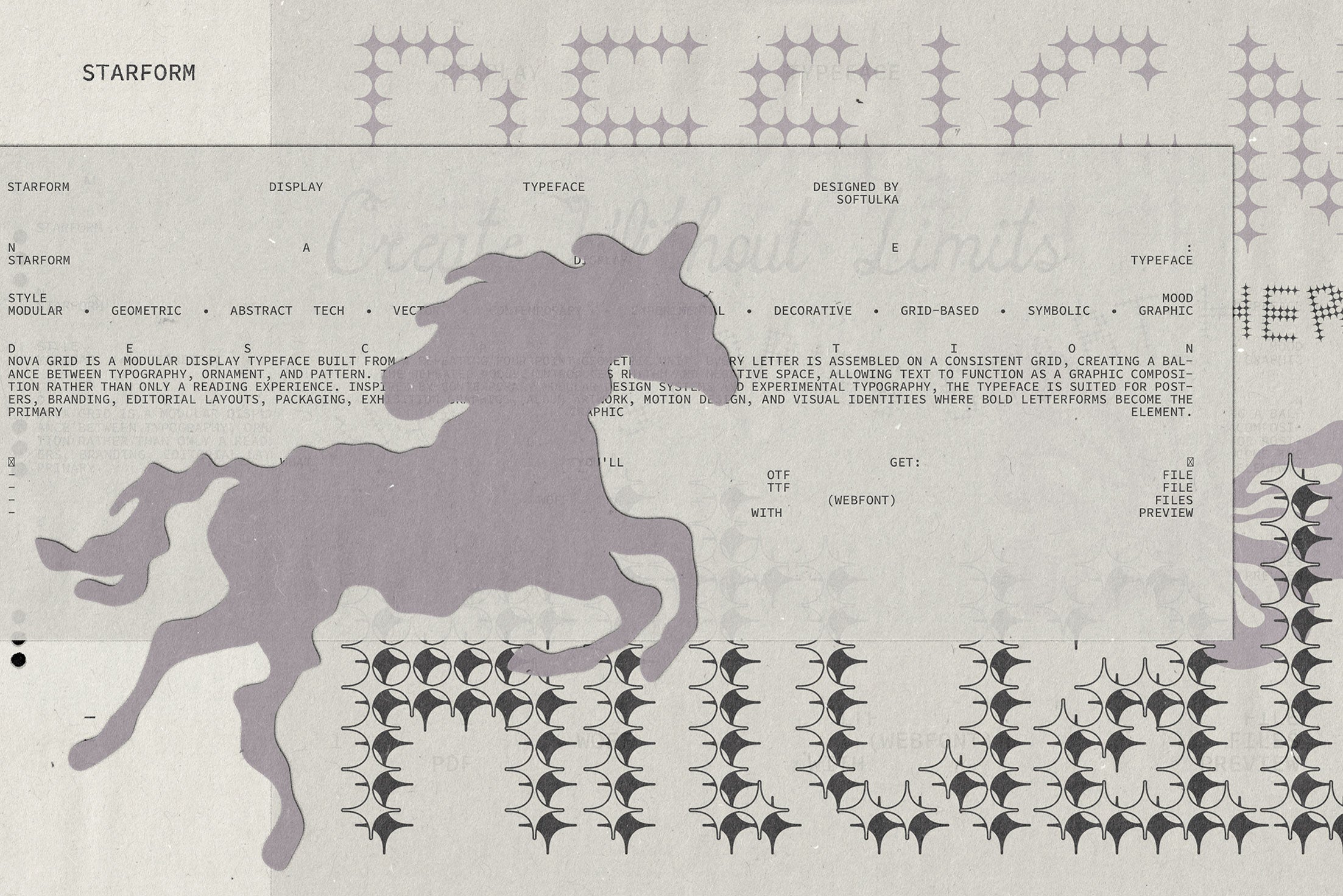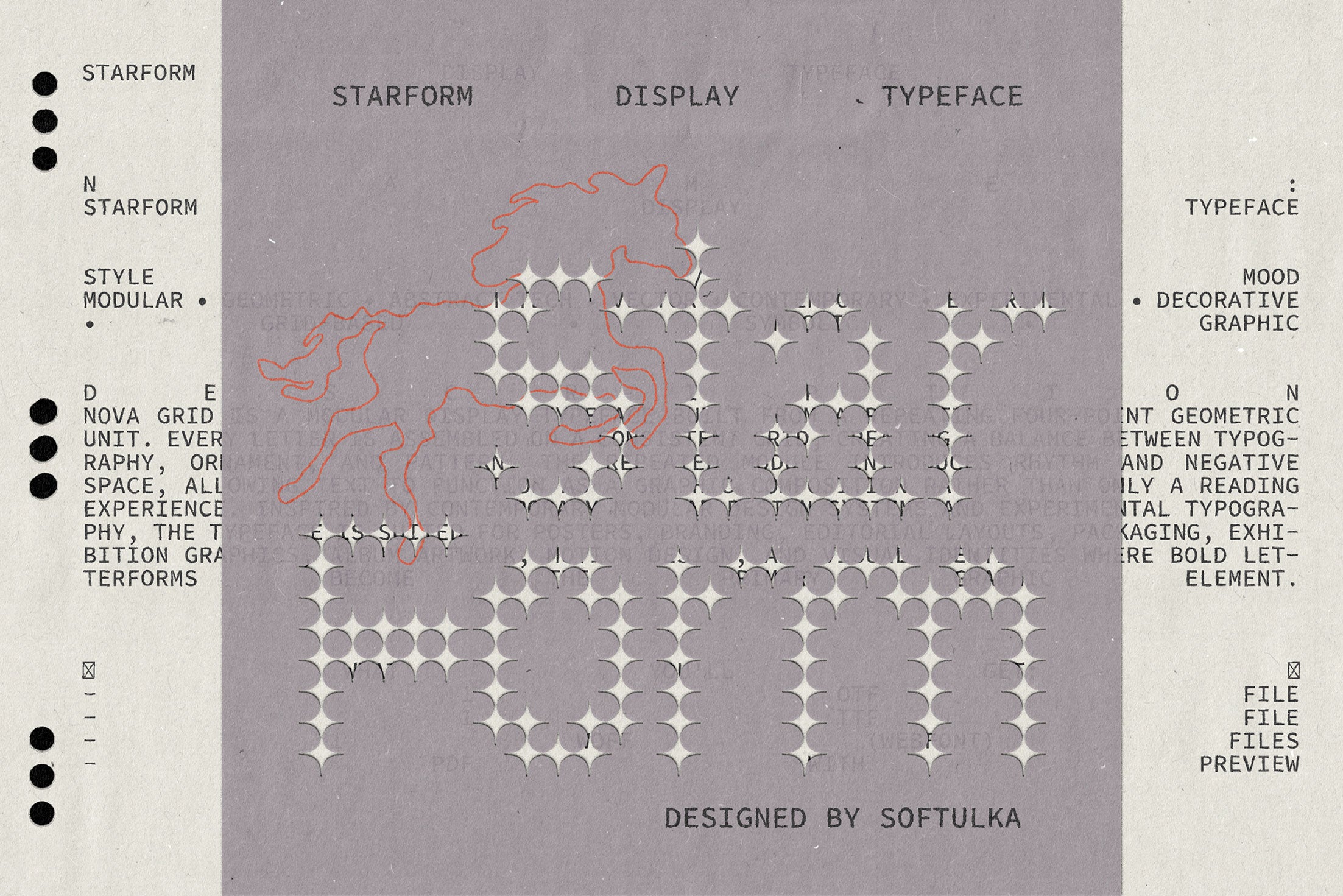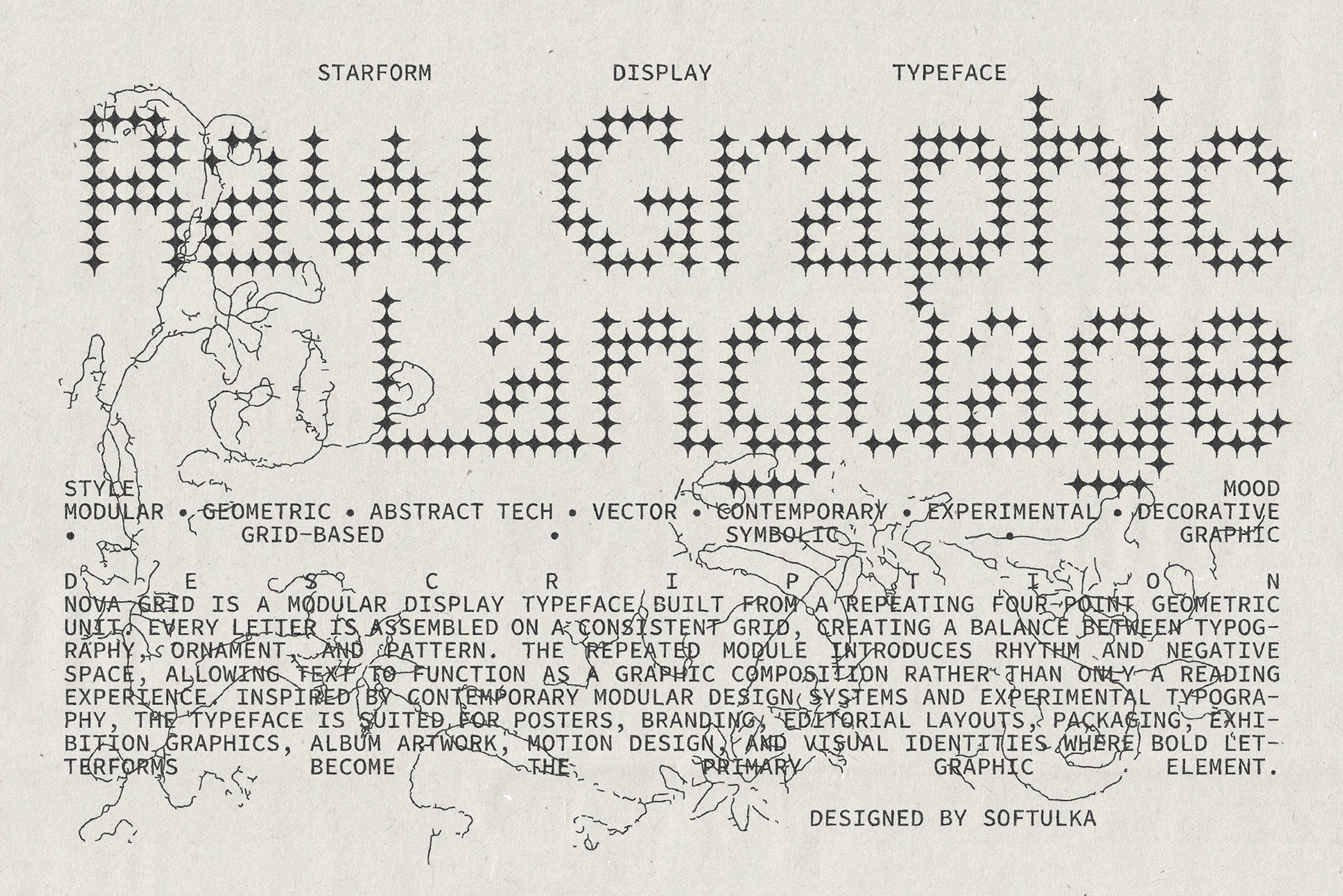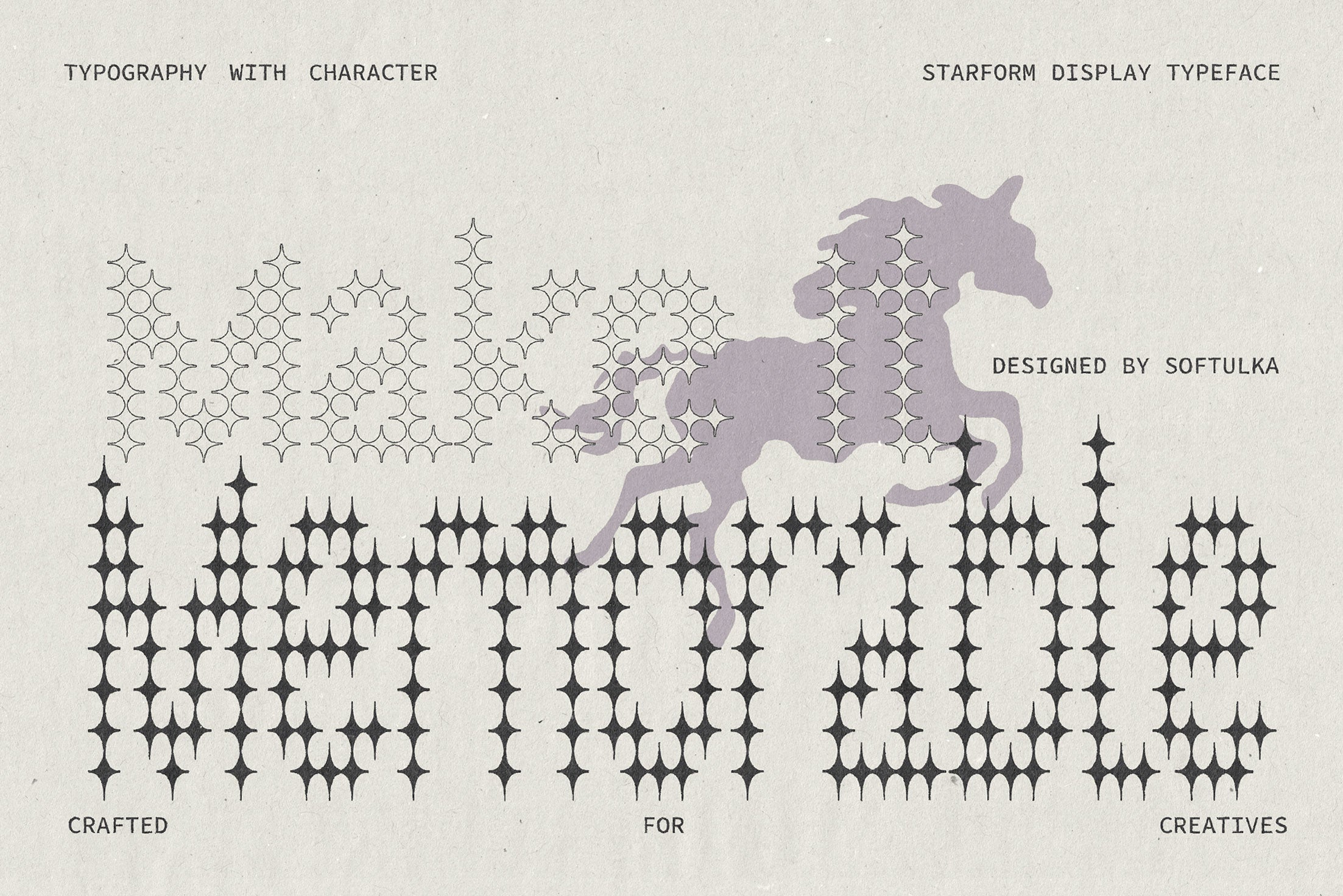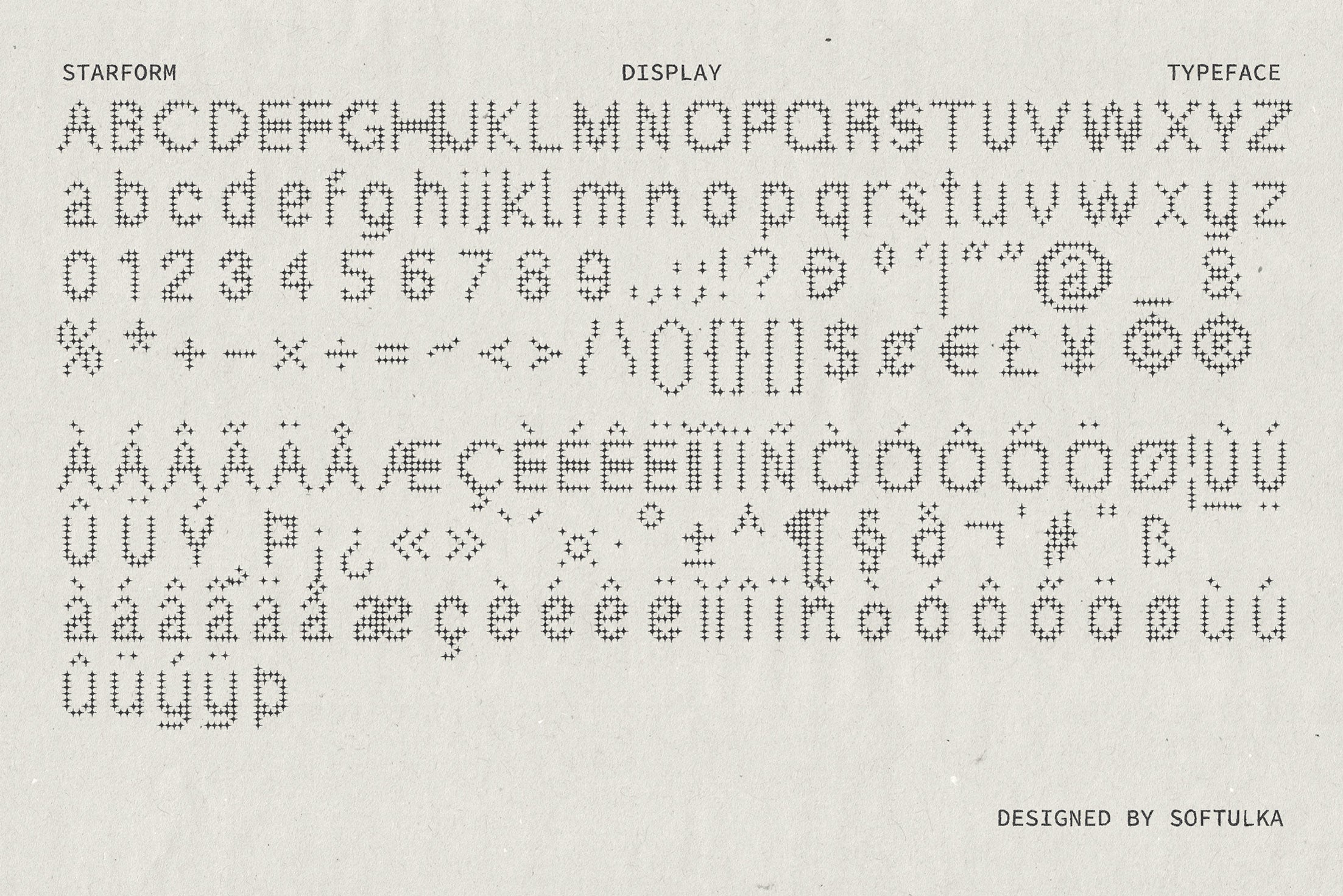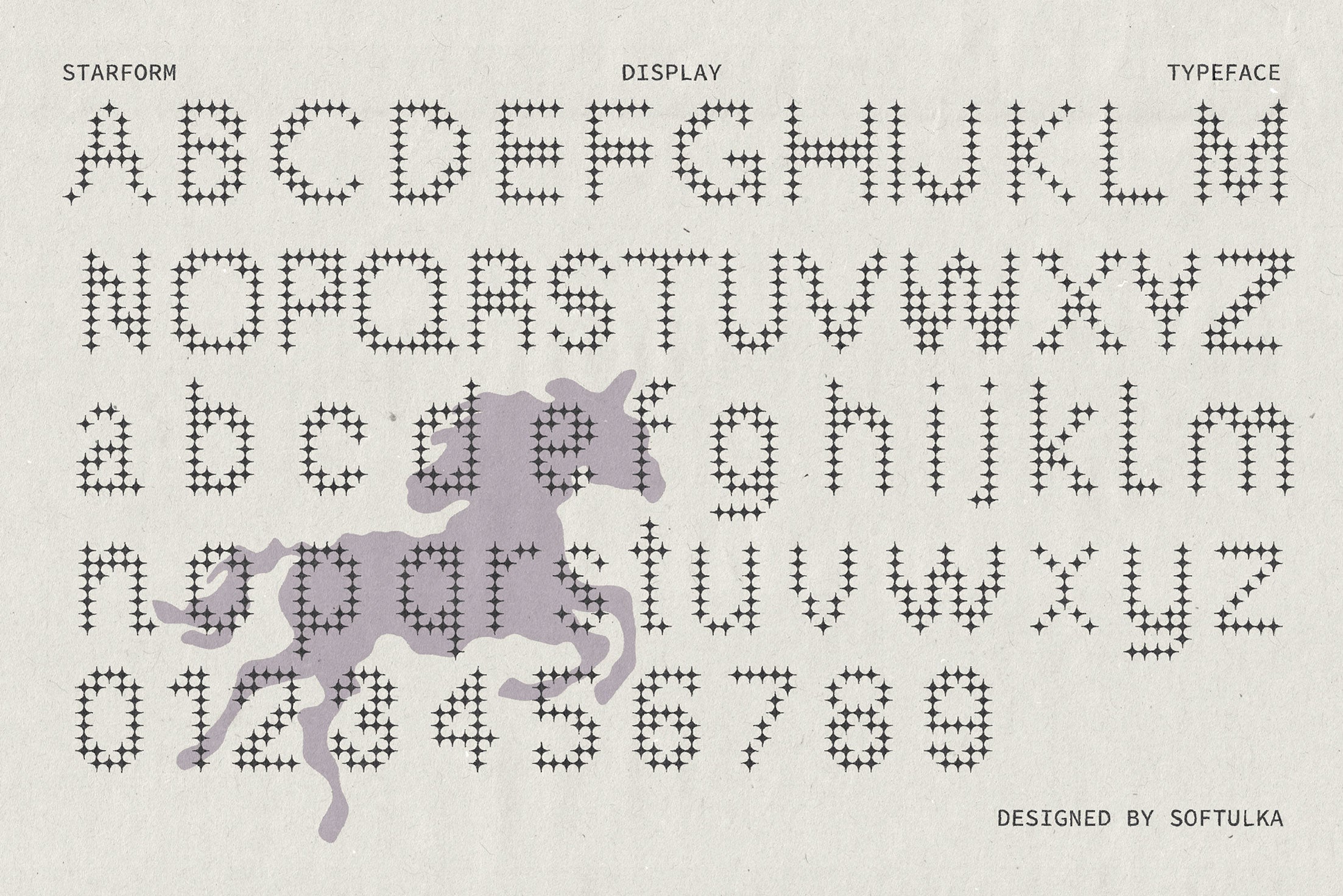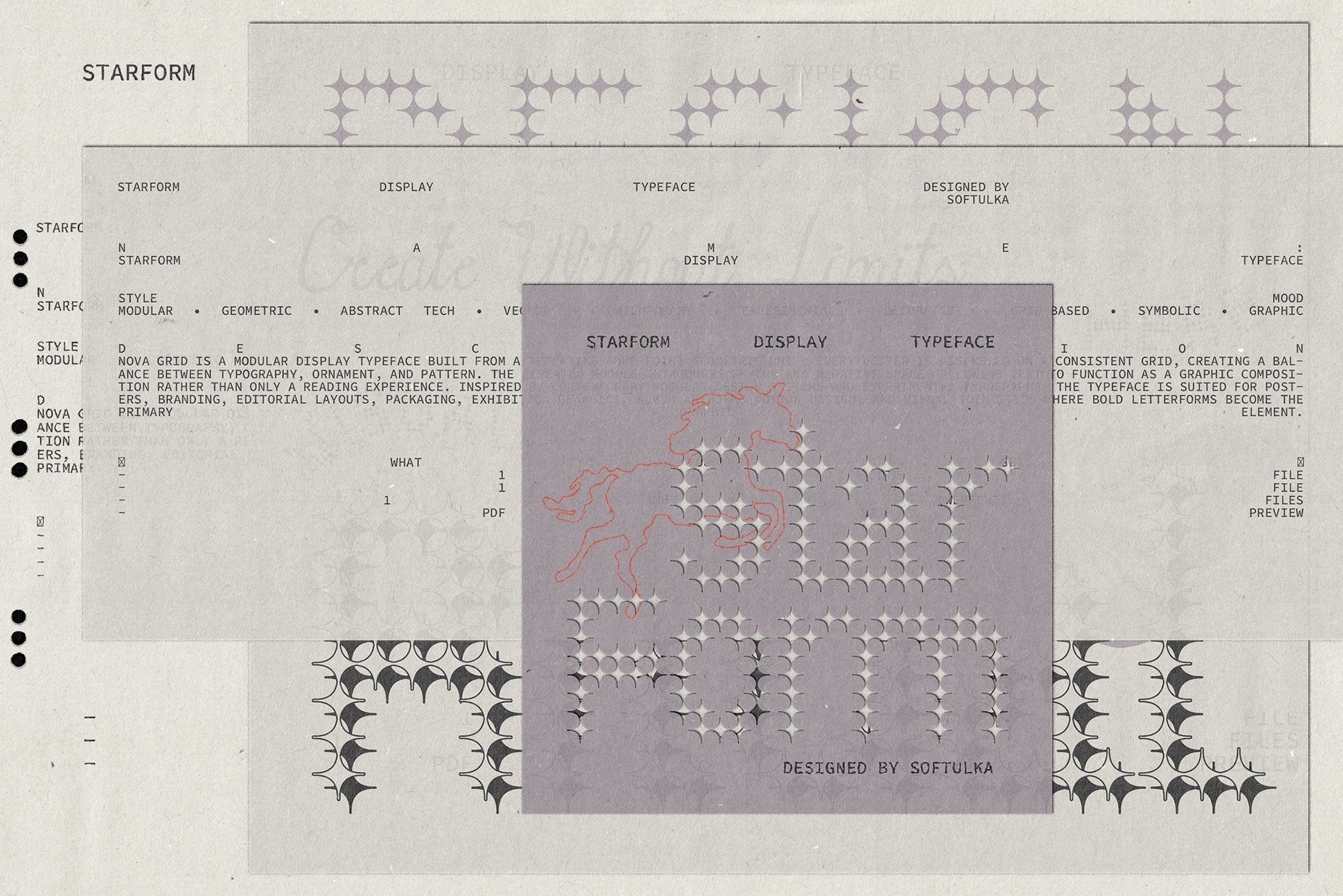
StarForm Typeface
StarForm is an experimental display typeface where typography becomes geometry. Built from a single repeating four-point module, every character follows a precise grid system, transforming words into striking graphic compositions filled with rhythm, symmetry, and negative space.
Rather than relying on traditional letter construction, StarForm embraces modular design principles to blur the boundary between typography, symbols, and pattern. The result is a contemporary display font that feels equally at home in experimental editorial design, futuristic branding, gallery posters, and visual identity systems.
Its geometric structure creates a strong architectural presence while remaining surprisingly versatile. Whether used for oversized headlines, logo design, album artwork, exhibition graphics, packaging, or motion design, StarForm instantly gives layouts a bold, modern character that commands attention.